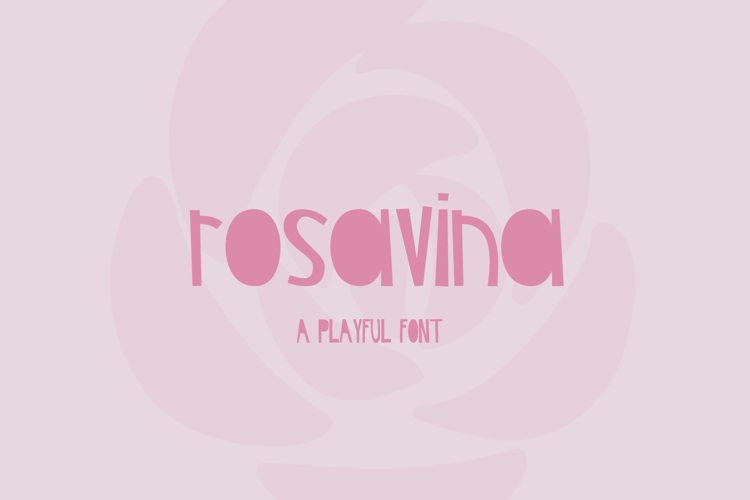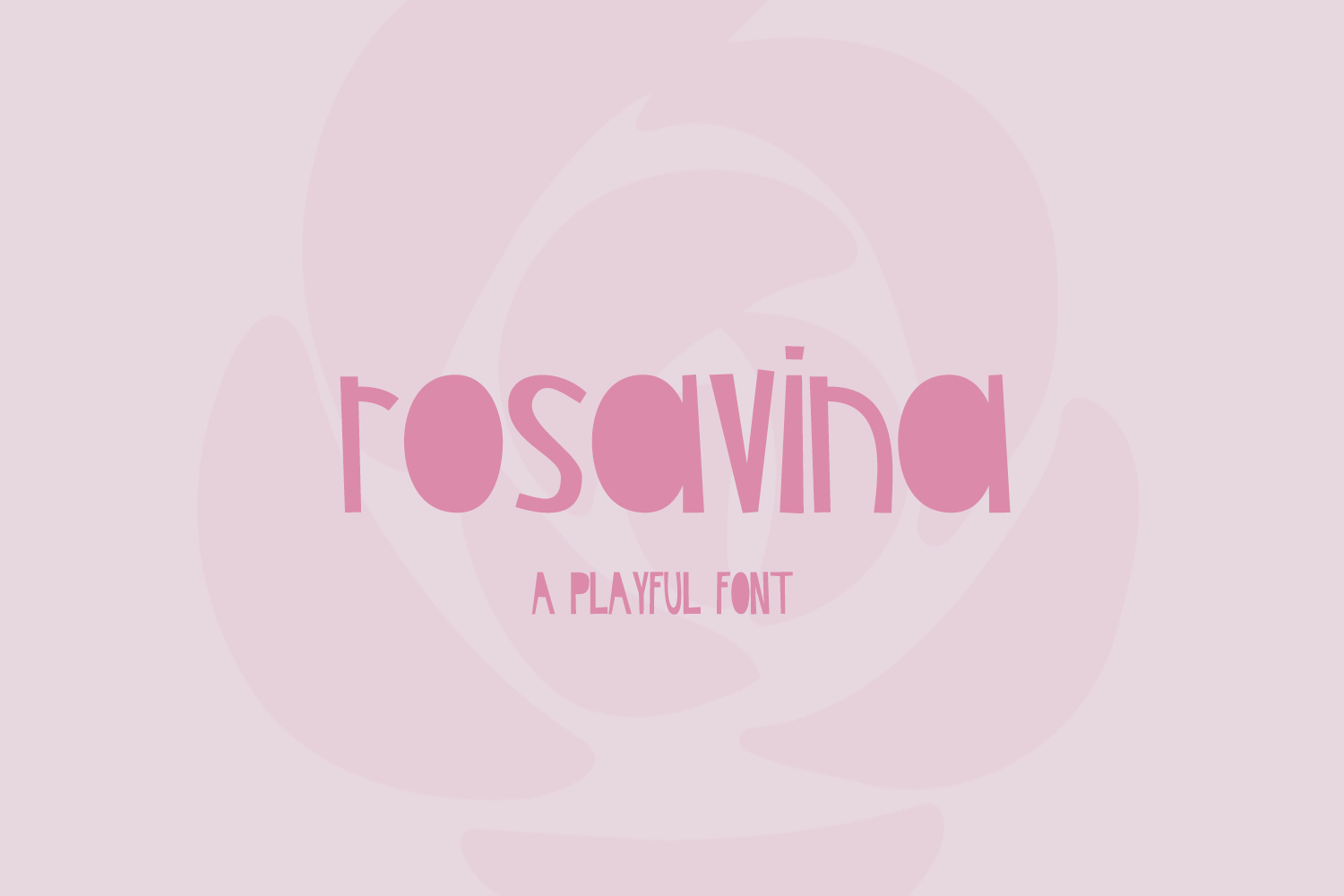
Rosavina Sans
Rosavina Sans is a playful, block letter font. This font features solid, blacked out letters with a whimsical touch. Rosavina is best for display purposes, like headlines & titles. It would be a great fit for crafting projects or fun print designs, like greeting cards.